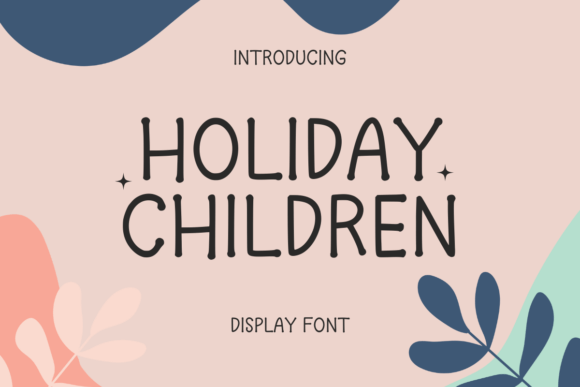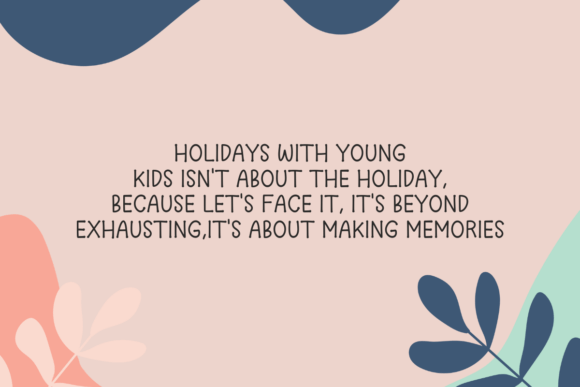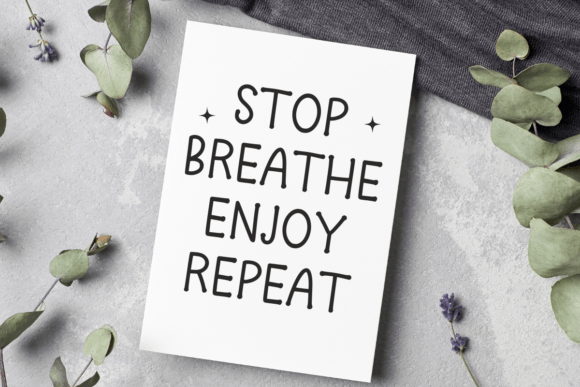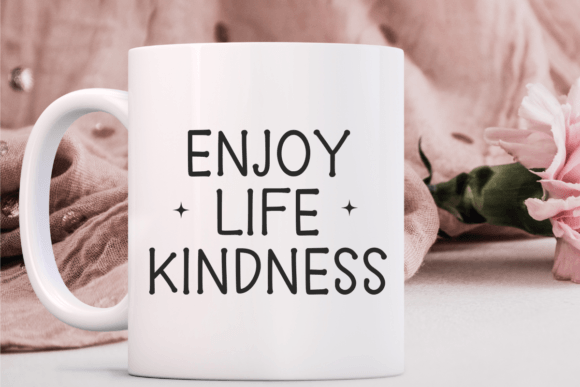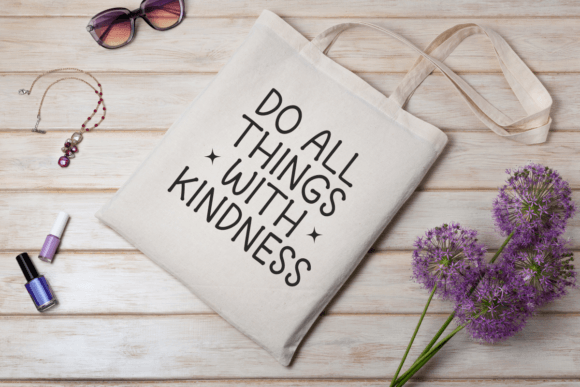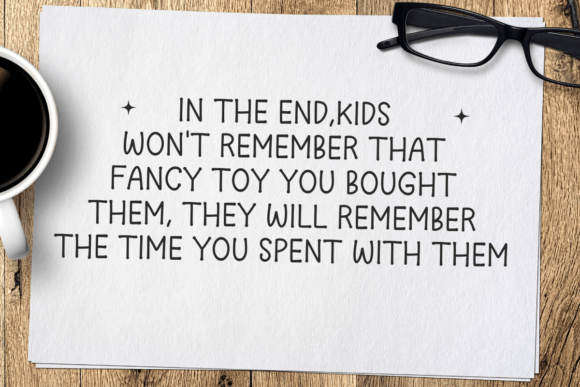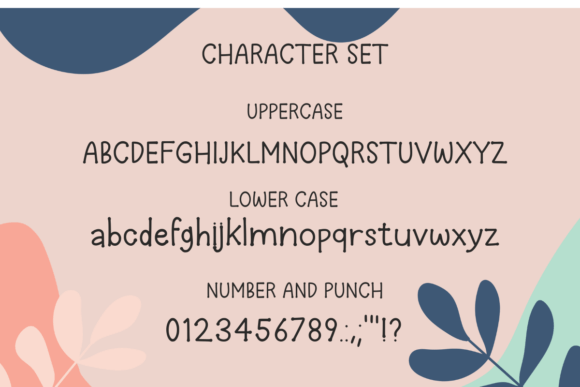
Remember the excitement of rummaging through your grandmother’s old craft box, filled with colorful markers, glitter, and hand-written cards? The simple act of creating something with love and care can spark a sense of joy and nostalgia. As designers, we’re constantly on the lookout for fonts that capture this essence of creativity and whimsy.
Enter the Holiday Children Font, a delightful handwritten font that’s perfect for adding a touch of playfulness to your designs. This charming font is designed to evoke the spirit of childhood wonder, making it ideal for projects that require a sense of innocence and joy. With its unique, hand-drawn style, the Holiday Children Font is a valuable asset for designers looking to add a personal touch to their work.
Holiday Children Font Key Features
- Character Count: The font includes a wide range of characters, including uppercase and lowercase letters, numbers, and punctuation marks.
- Unique Characteristics: Holiday Children Font features a playful, hand-drawn design with intricate details, making it perfect for creating festive and whimsical designs.
- Style Options: The font comes in two styles: Regular and Bold, allowing designers to choose the perfect look for their projects.
Holiday Children Font Review
I recently had the chance to work with the “Holiday Children Font”, and I must say it’s a fun and playful typeface. ✨ One of the things that works well is its ability to evoke a sense of nostalgia and whimsy. The font’s design is reminiscent of classic holiday decorations and is sure to add a touch of magic to any project.
- Customizable ornaments and icons are available to further enhance the festive feel.
- The font’s range of weights and styles provides flexibility for various design applications.
- The font is highly legible, making it suitable for both body text and headlines.
However, there are some limitations to consider. ⚠️ The font’s design may be too playful for certain projects, and some users may find it distracting. Additionally, the font’s range of characters is somewhat limited, which could be a problem for more complex designs.
Overall, I think the “Holiday Children Font” is a great choice for projects that require a fun and festive atmosphere. While it may not be suitable for every design application, it’s a great addition to any designer’s toolkit. With a little creativity, you can create truly unique and engaging designs using this font.
The Holiday Children Font is perfect for creating festive holiday designs, including:
- Christmas and New Year’s Eve invitations
- Valentine’s Day cards and gifts
- Halloween and Thanksgiving decorations